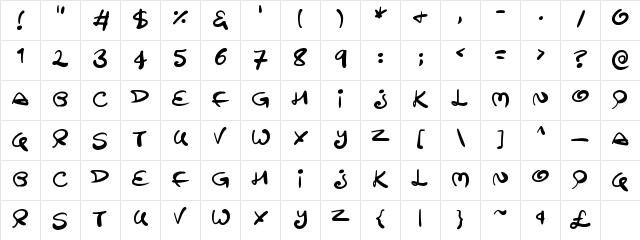
Swirltastic Regular
Design Context for Swirltastic Typeface
Swirltastic is built around its visual character rather than neutral utility — its distinctive forms are designed to make an impression at display sizes.
Font Pairing: Pair with a clean neutral sans-serif for body copy to let Swirltastic's character lead without overwhelming the composition.
Pro Tip: Use Swirltastic exclusively at display sizes — it was designed to be seen, not read at length. Let a neutral companion handle body copy.